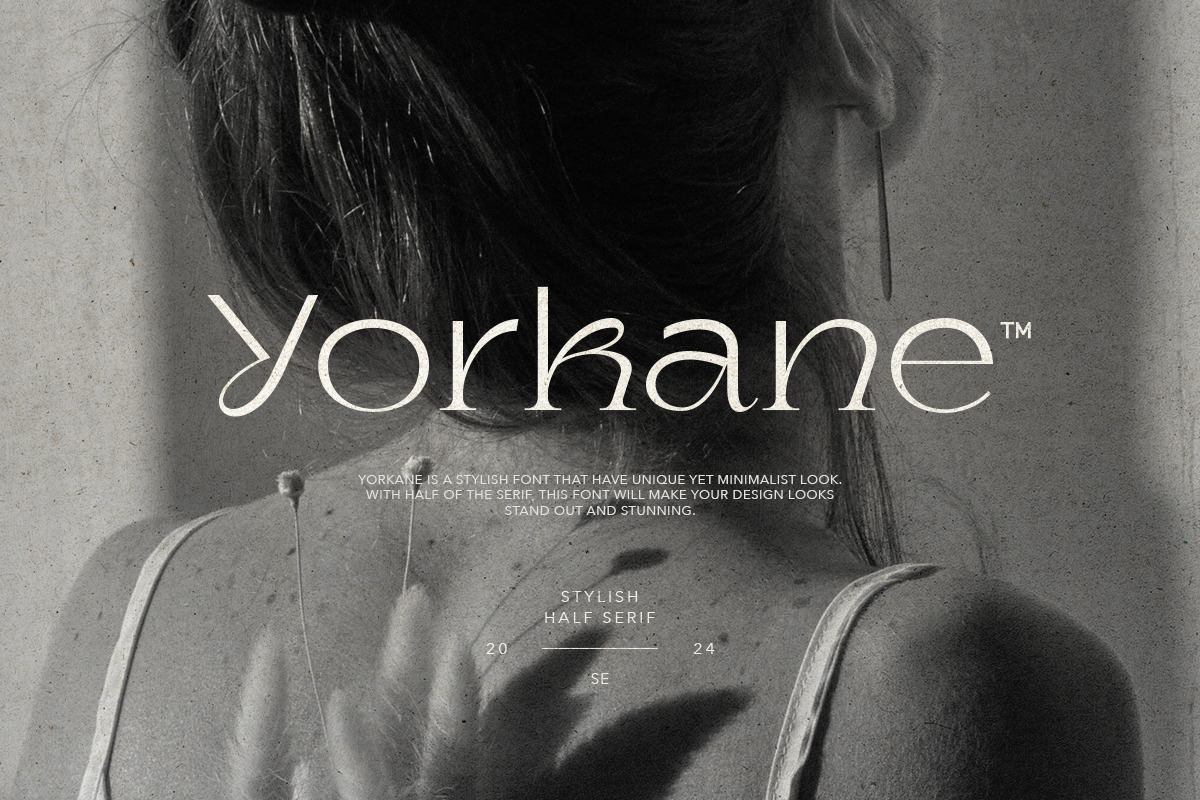
Yorkane – Stylish Half Serif Font Free Download is a modern and distinctive typeface that blends sleek, minimal serifs with smooth curves, creating a stylish and contemporary look. Perfect for creative branding, editorial design, fashion campaigns, and high-end logos, Yorkane offers an elegant and refined aesthetic with a unique twist.
The half-serif design gives it a modern feel while maintaining the timeless appeal of traditional serif fonts. Its versatility makes it ideal for both body text and eye-catching headlines, providing sophistication and clarity to your designs.